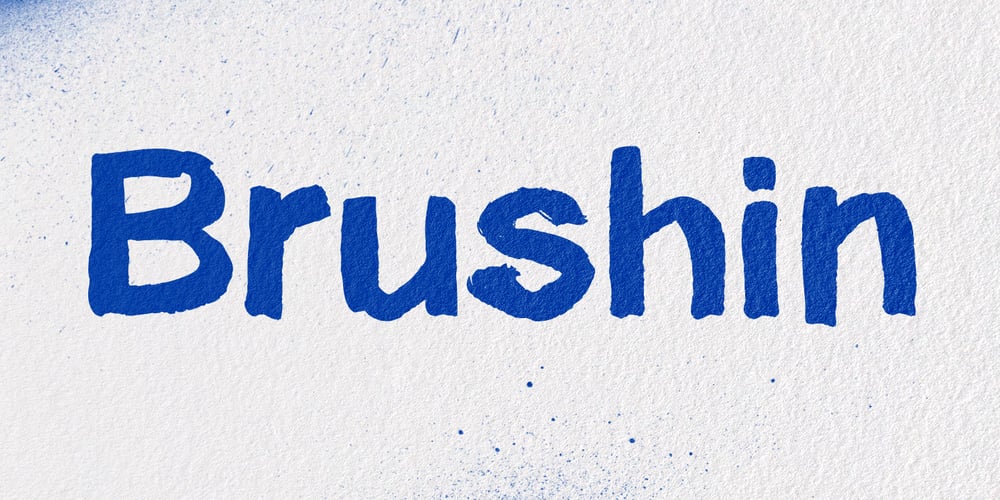
Brushin Font Family was designed by Marin Damian and published by Mandarin. Brushin contains 1 styles and family package options. Brushin is an handwritten display font inspired by the straightforward rigidness of Grotesque sans-serif fonts. It features two stylistic sets for every glyphs in font so it gives you the choice to not repeat the same glyph design in big titles and/or small statements. The font was designed on paper with a brush and then scanned, vectorised through Photoshop and finally compiled in Glyphs as a font file.